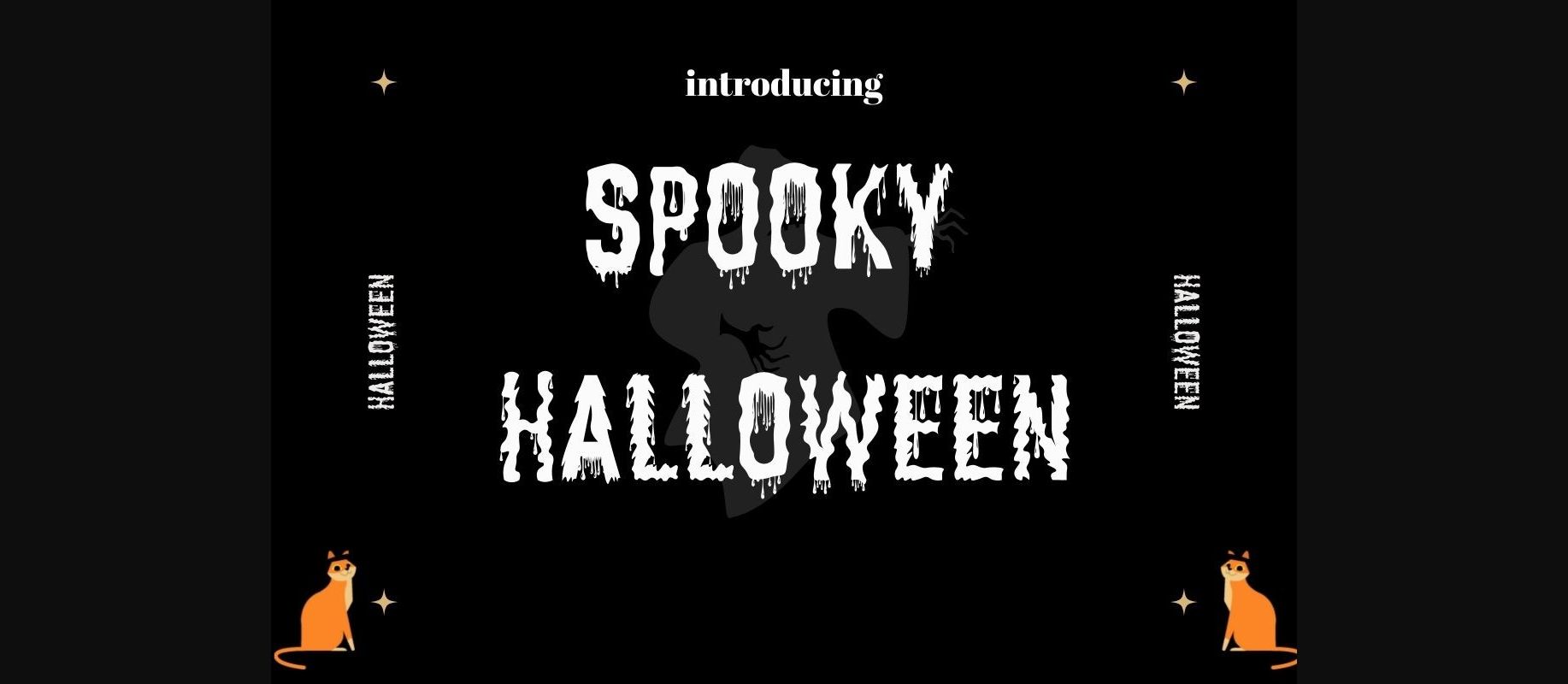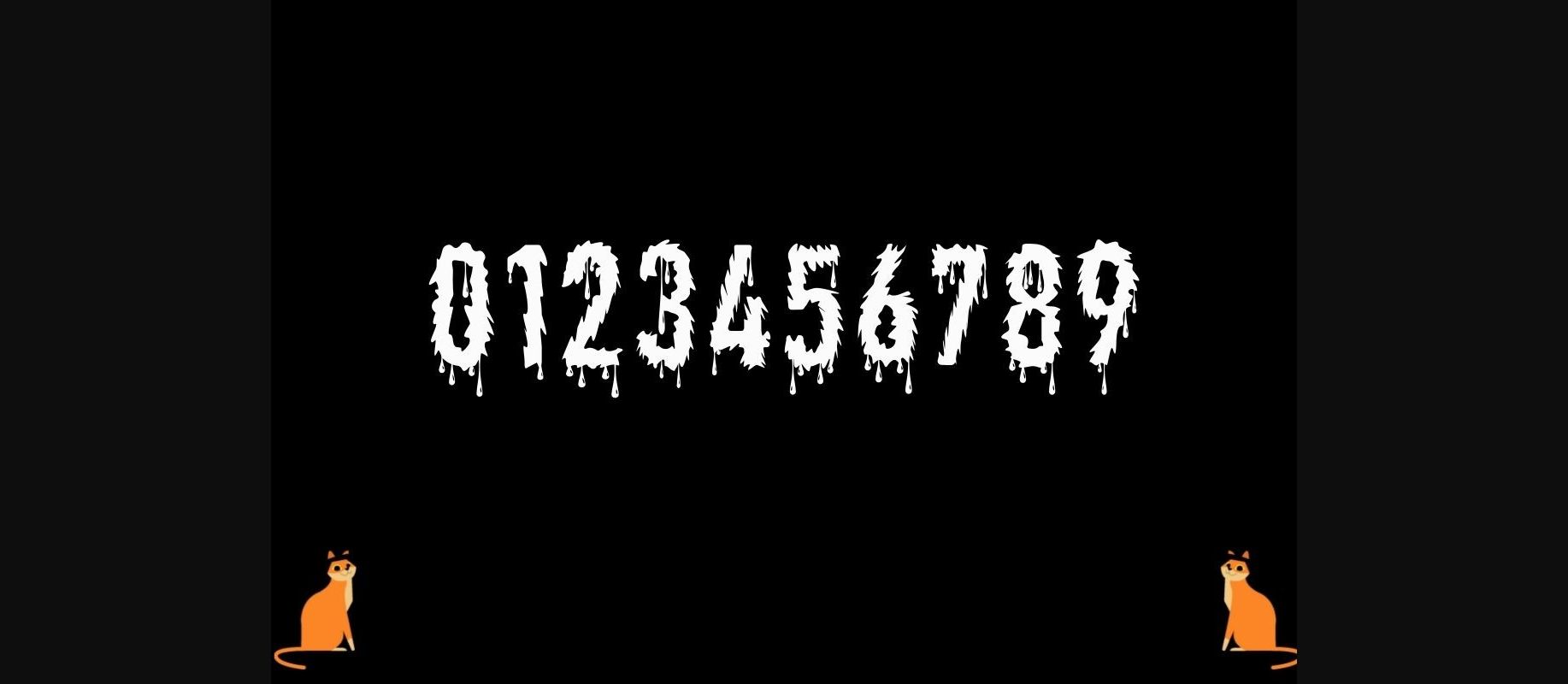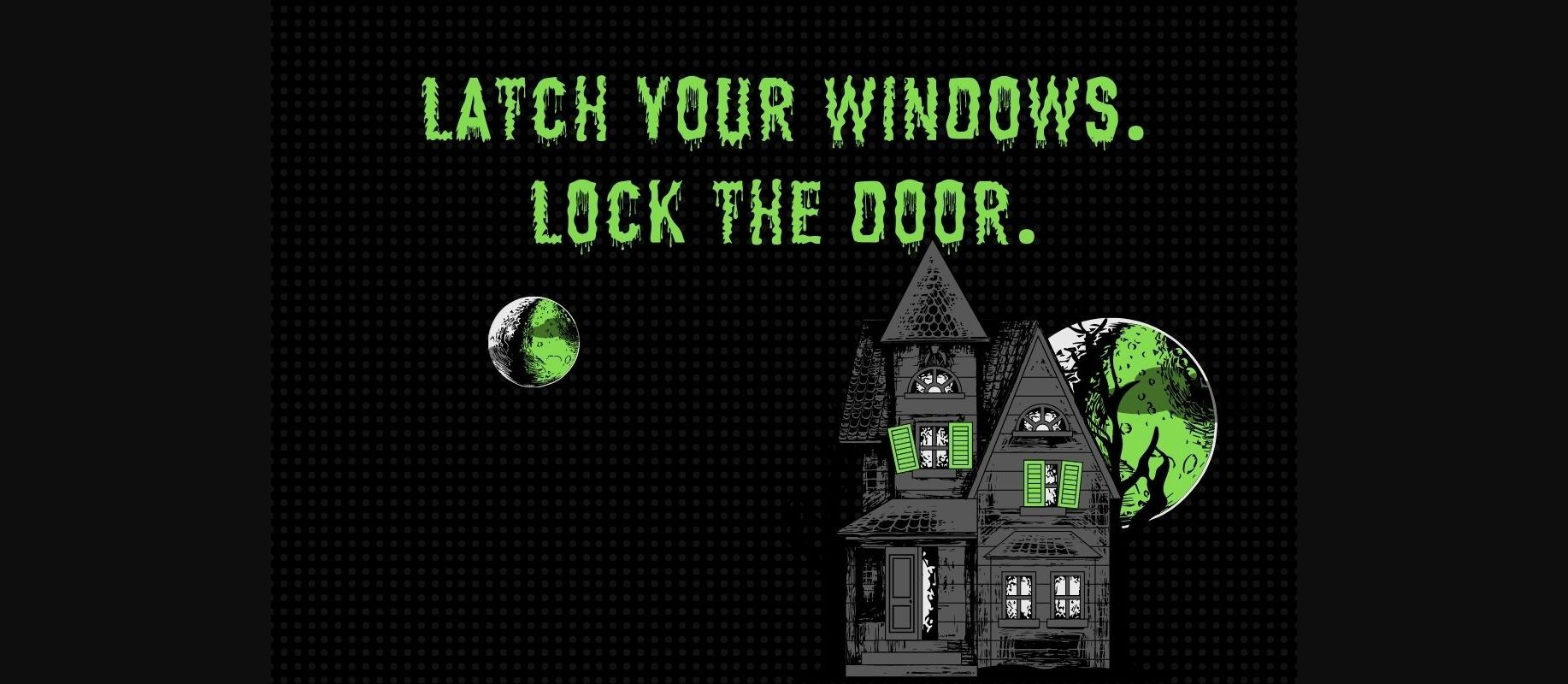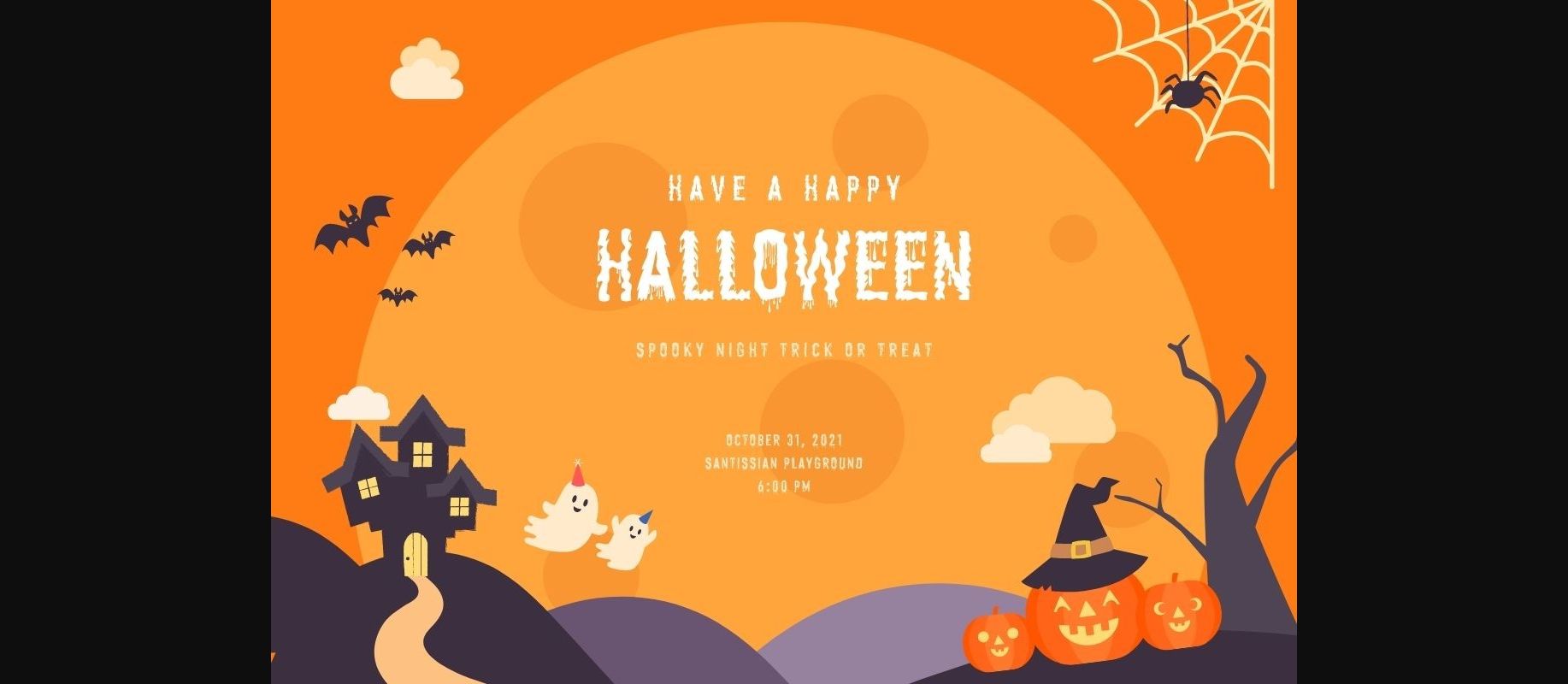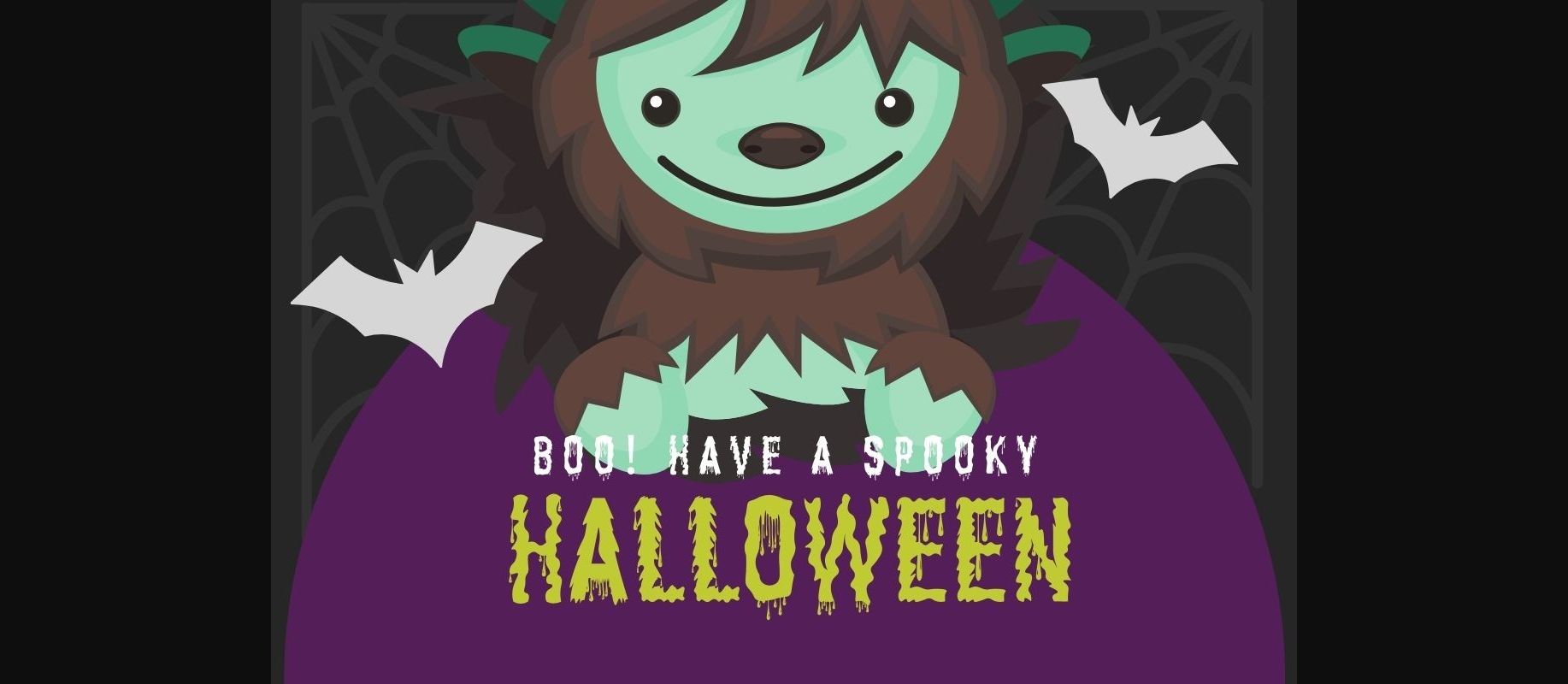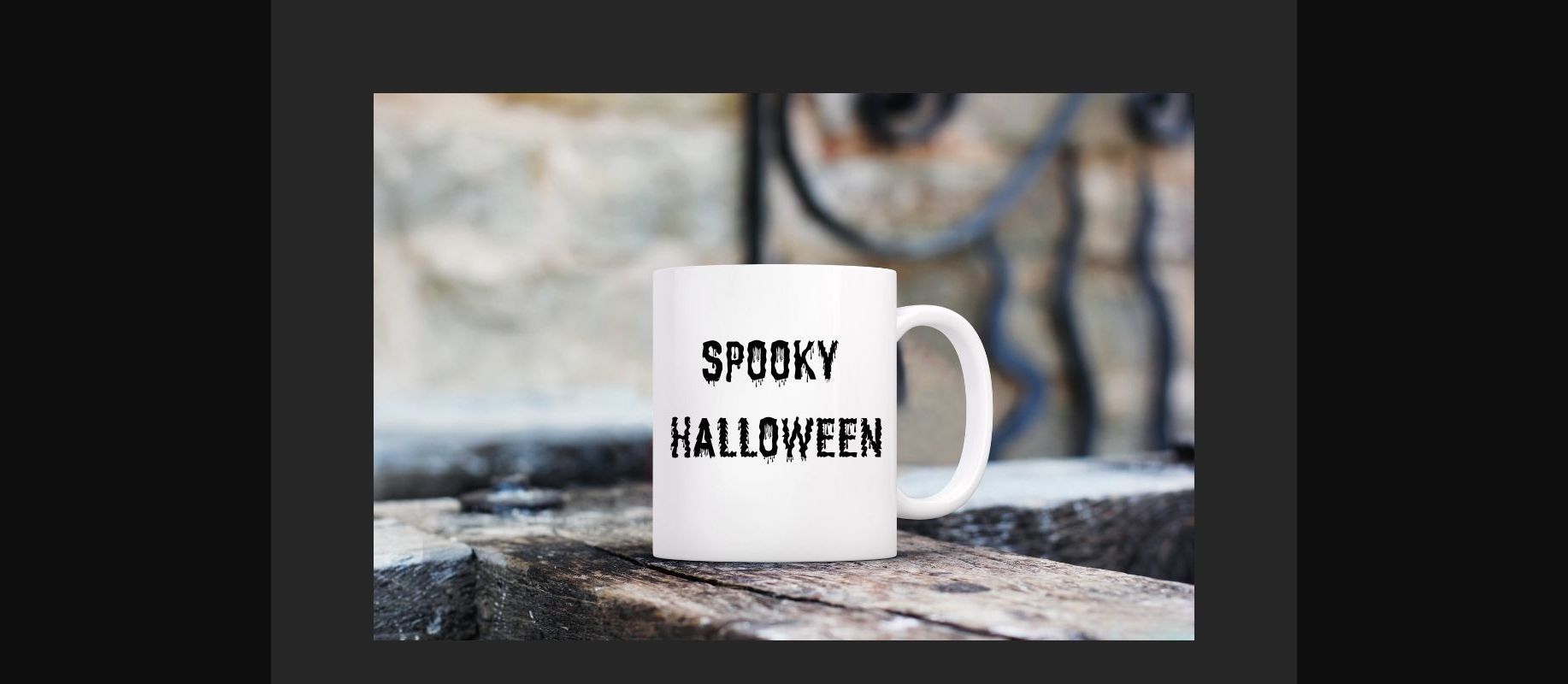
About Spooky Font
Spooky is a cool and creepy decorative font. Add it confidently to your favorite creations and let yourself be amazed by the outcome generated.